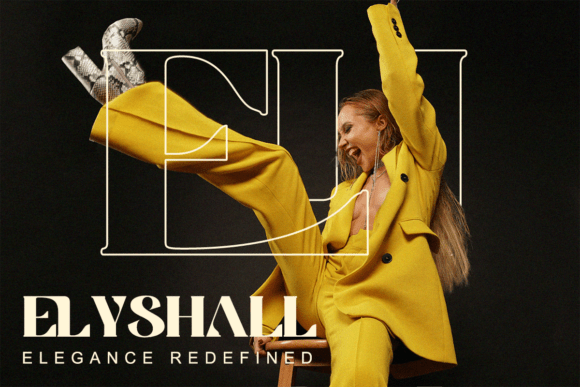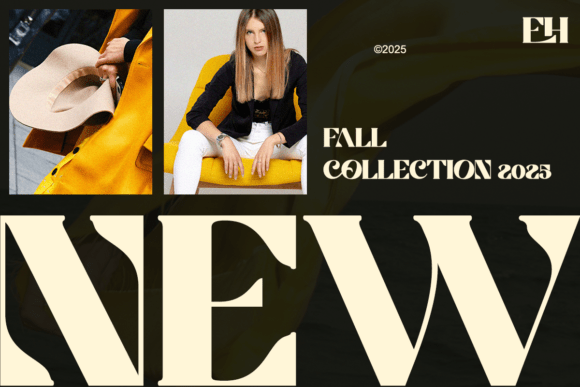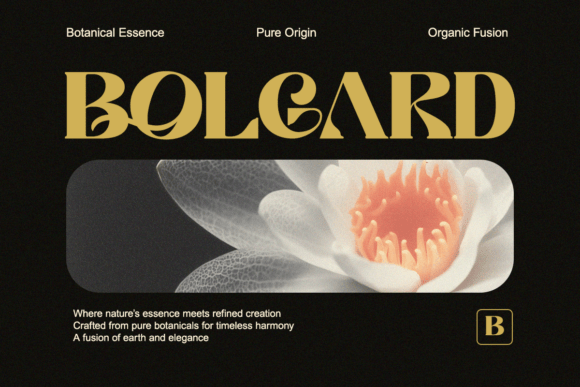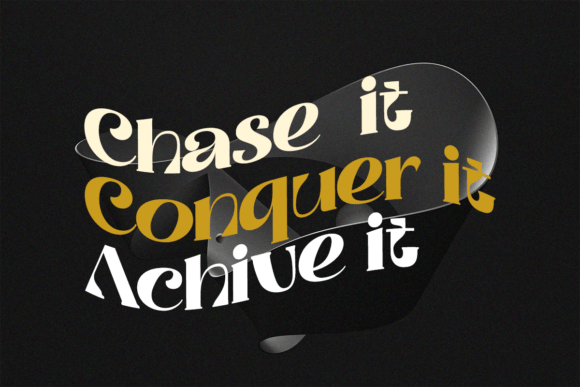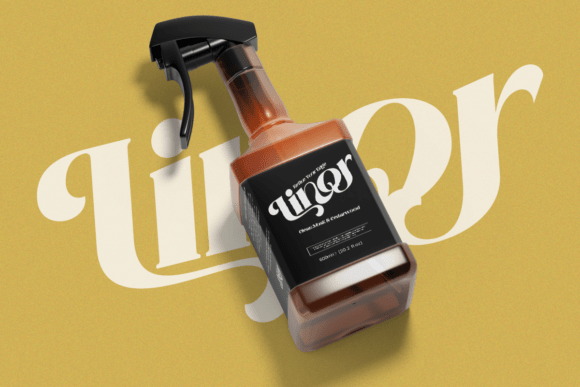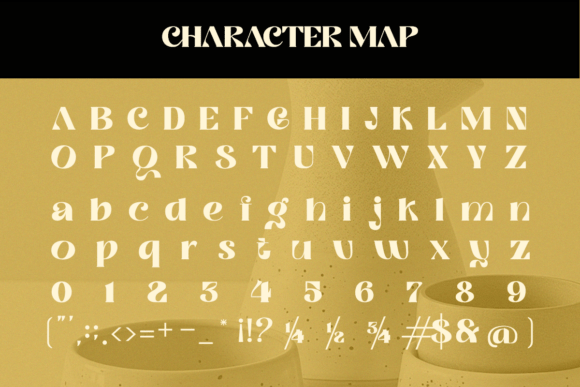
Introducing Filoptus Font: Elevate Your Designs with Elegance and Sophistication
In the world of typography, a font can make or break a design. For designers and crafters seeking to add a touch of luxury and sophistication to their work, Filoptus Font is an exceptional choice. This elegant modern serif font boasts bold strokes, expressive swashes, and artistic ligatures, making it perfect for a wide range of applications, from logos and magazine titles to posters, wedding invites, beauty branding, and luxury product packaging.
Unparalleled Visual Presence
Filoptus Font is designed to deliver a strong visual presence, making it ideal for designers who want to create a lasting impression. Its bold strokes and elegant lines exude confidence and sophistication, while its expressive swashes add a touch of creativity and flair. Whether you’re working on a digital project or a print design, Filoptus Font is sure to turn heads.
Key Features of Filoptus Font
- Elegant Modern Serif: Filoptus Font features a sleek and modern serif design that adds a touch of sophistication to any project.
- Bold Strokes: The font’s bold strokes provide a strong visual presence, making it perfect for headlines, titles, and logos.
- Expressive Swashes: Filoptus Font includes a range of expressive swashes that add a touch of creativity and elegance to your designs.
- Artistic Ligatures: The font features artistic ligatures that add a touch of sophistication and refinement to your work.
Perfect for a Range of Applications
Filoptus Font is an incredibly versatile font that can be used for a wide range of applications, including:
- Logos: Create a lasting impression with a custom logo that showcases your brand’s personality and style.
- Magazine Titles: Add a touch of elegance and sophistication to your magazine titles and headers.
- Posters: Create eye-catching posters that grab attention and leave a lasting impression.
- Wedding Invites: Add a touch of luxury and sophistication to your wedding invitations and stationery.
- Beauty Branding: Create a stunning brand identity that showcases your beauty brand’s personality and style.
- Luxury Product Packaging: Elevate your luxury product packaging with a font that exudes sophistication and elegance.
Why Choose Filoptus Font?
With so many fonts to choose from, why should you choose Filoptus Font? Here are just a few reasons:
- Unique and Elegant Design: Filoptus Font features a unique and elegant design that sets it apart from other fonts.
- Highly Versatile: The font is incredibly versatile and can be used for a wide range of applications.
- Easy to Read: Despite its elegant design, Filoptus Font is easy to read, making it perfect for both digital and print designs.
- Up-to-Date Design: The font features an up-to-date design that is sure to impress even the most discerning designers and crafters.
| Font Name | Filoptus Font |
In conclusion, Filoptus Font is an exceptional choice for designers and crafters seeking to add a touch of luxury and sophistication to their work. With its elegant modern serif design, bold strokes, expressive swashes, and artistic ligatures, this font is perfect for a wide range of applications. Whether you’re working on a digital project or a print design, Filoptus Font is sure to deliver a strong visual presence and upscale sophistication.